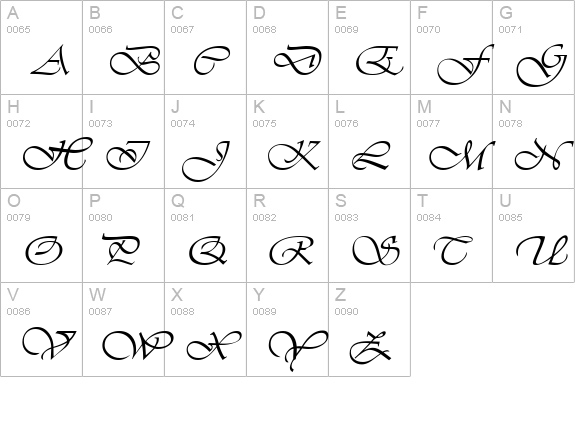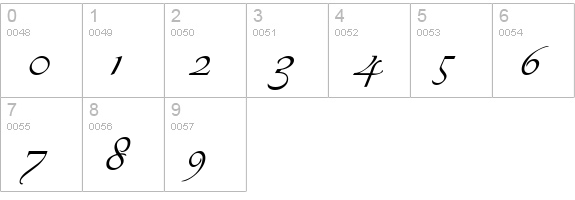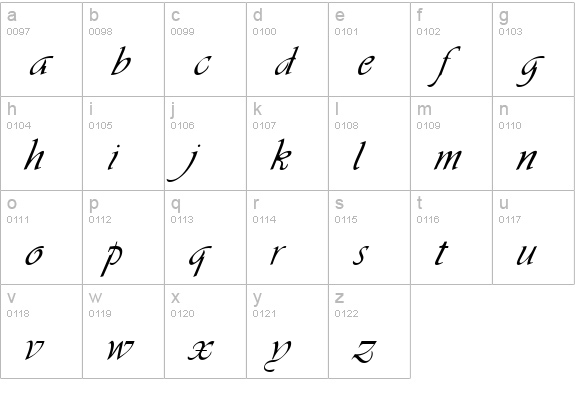
Vivacious Font Details
Introducing Vivacious, a font that exudes energy and zest, perfect for adding a vibrant touch to any design project. With its playful curves and lively strokes, Vivacious captures the essence of liveliness and enthusiasm. This font is the epitome of free-spiritedness, bringing a sense of joy and excitement to your typography. Vivacious is not only visually captivating but also versatile, making it suitable for a wide range of applications. Whether you're designing a logo, creating eye-catching headlines, or designing a poster that demands attention, Vivacious will effortlessly elevate your design to new heights. What sets Vivacious apart is not just its dynamic appearance, but also its accessibility. This font is freely available to download at FontsMarket.com, ensuring that designers of all levels can access its unique charm and unleash their creativity without any limitations. With Vivacious, your designs will come to life with its vibrant personality and captivating style. Embrace the freedom to express yourself and let your imagination run wild with this extraordinary font. Download Vivacious today from FontsMarket.com and embark on a typographic journey that is sure to captivate and inspire.